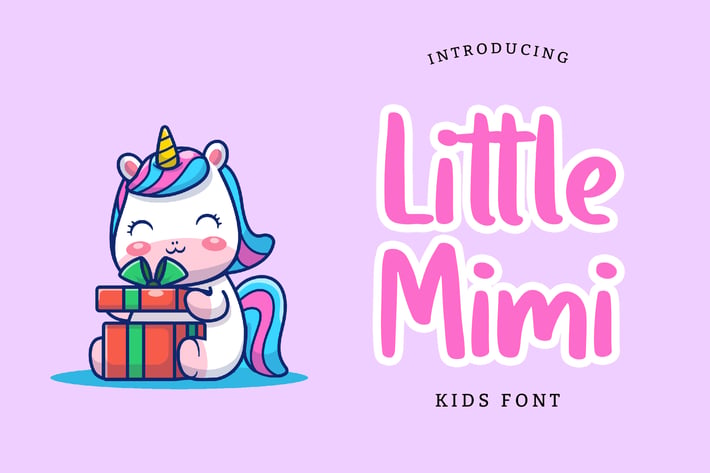
Little Mimi Kids Font
Little Mimi Kids Font, can make your text appear playful, excited, and modern!
Little Mimi Kids Font is perfect for cute and playful branding projects, logo, petshop and animal-related projects, social media posts, advertisements, product packaging, T-shirt design, product designs, label, photography, watermark, invitation, stationery, and any projects.